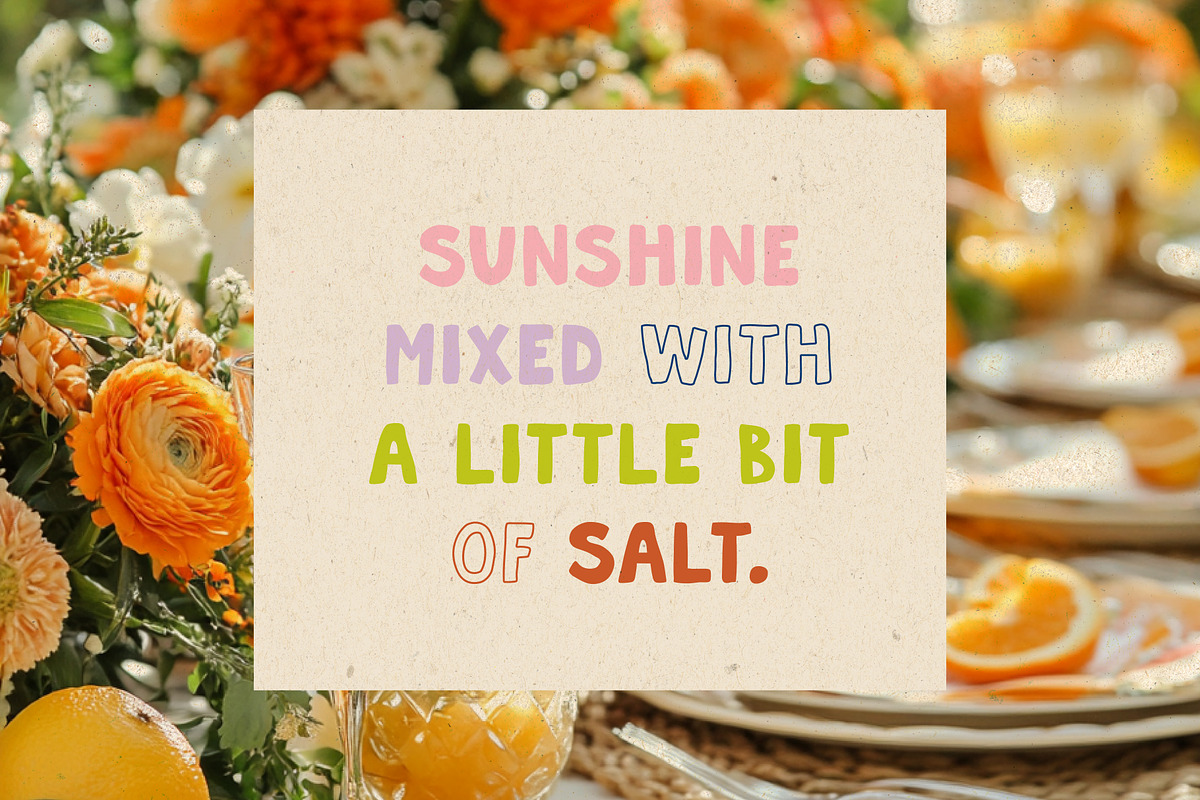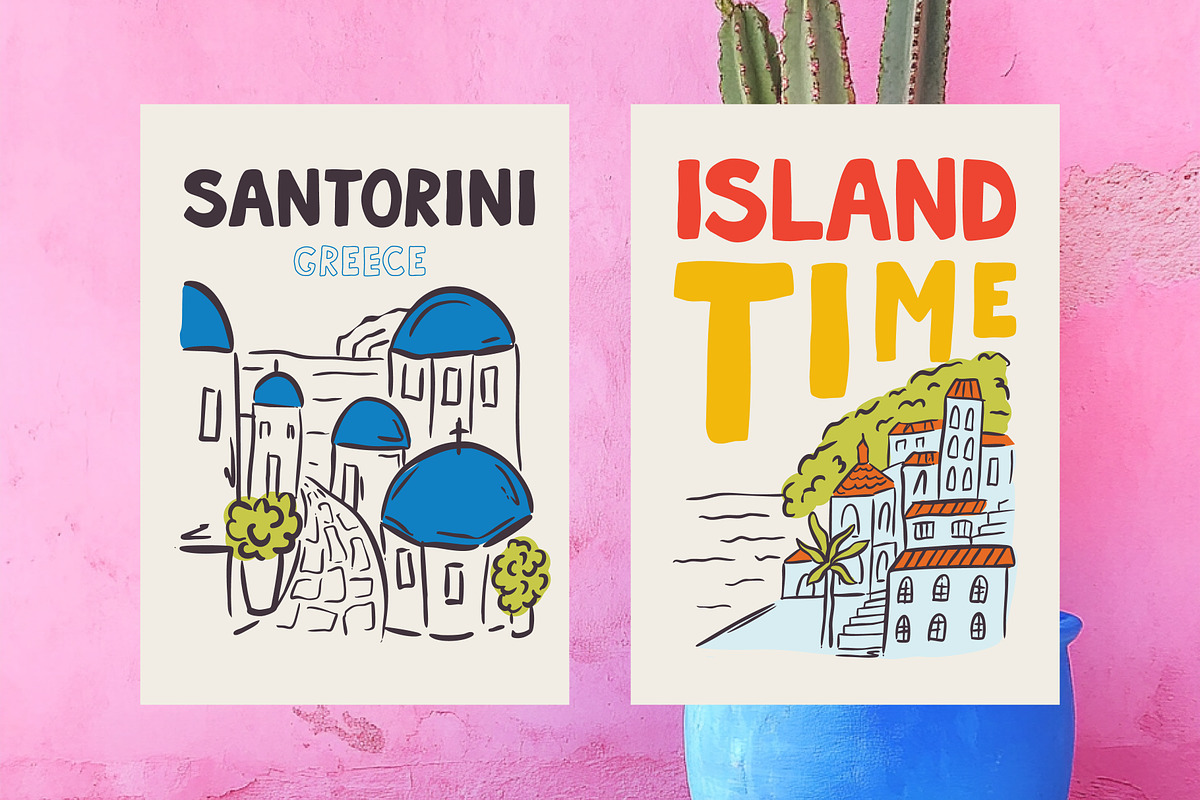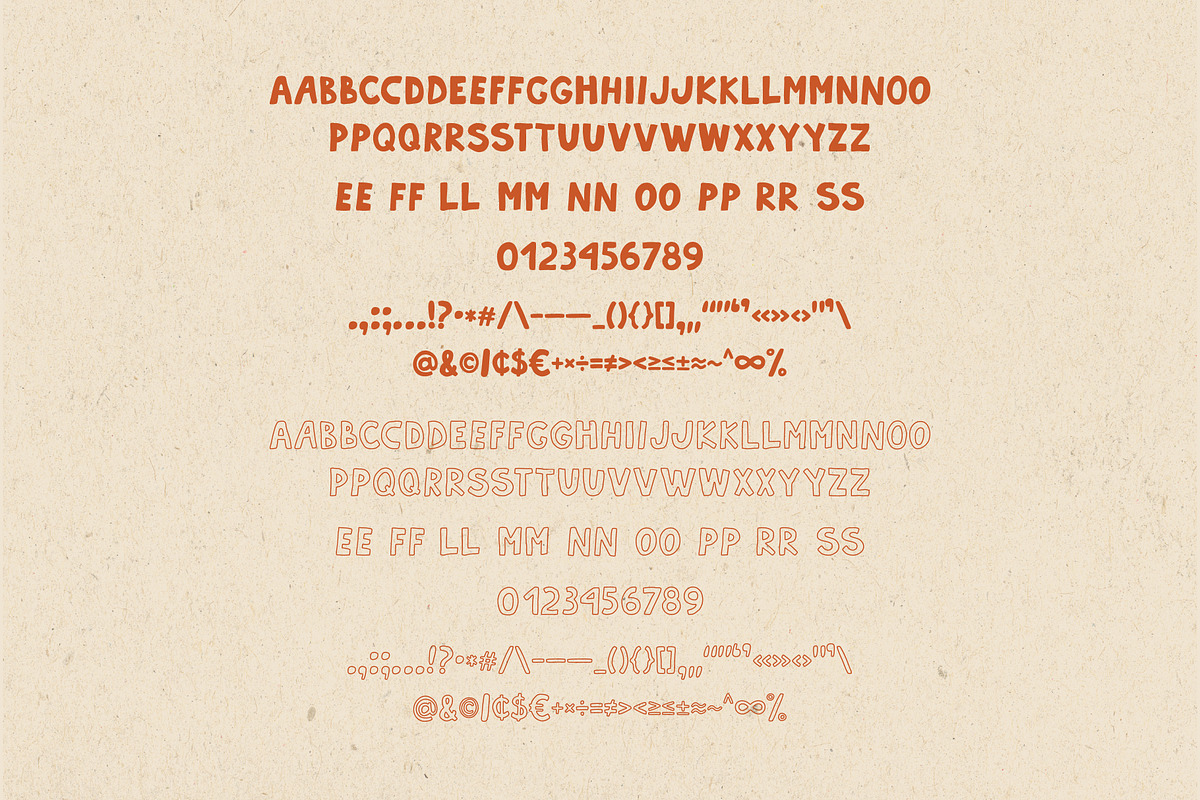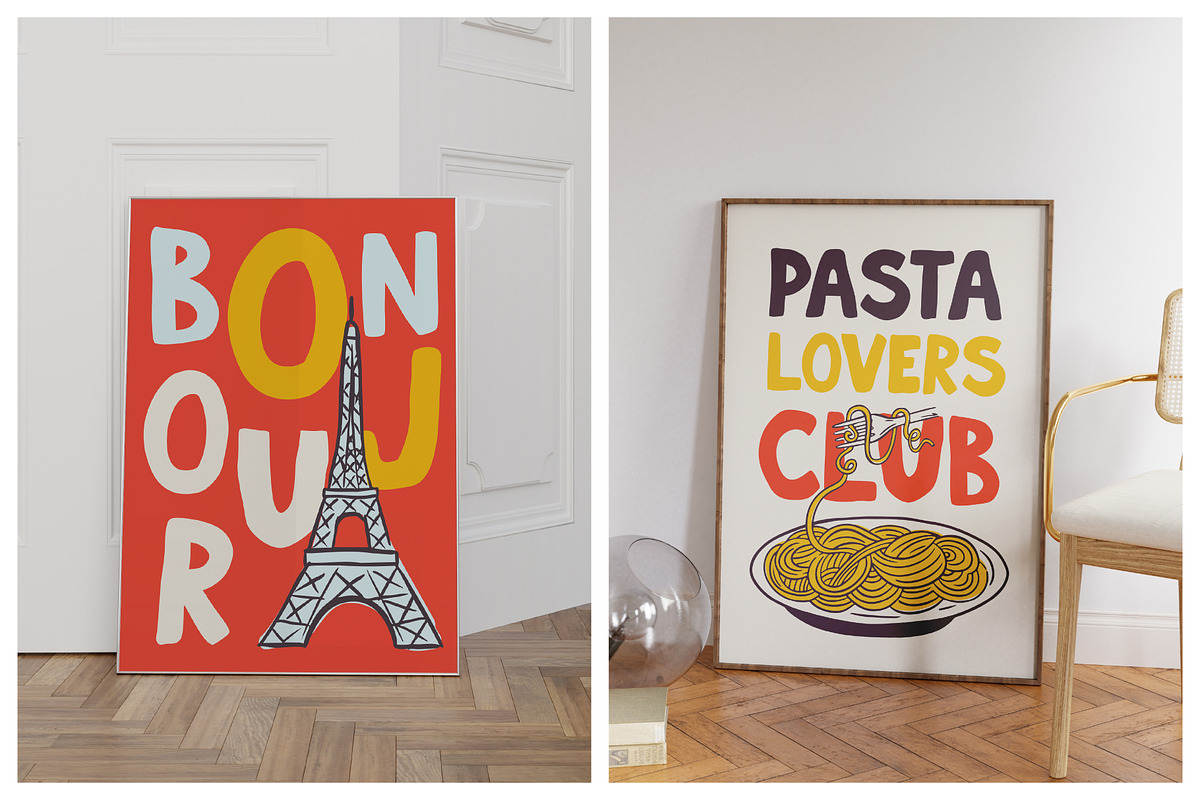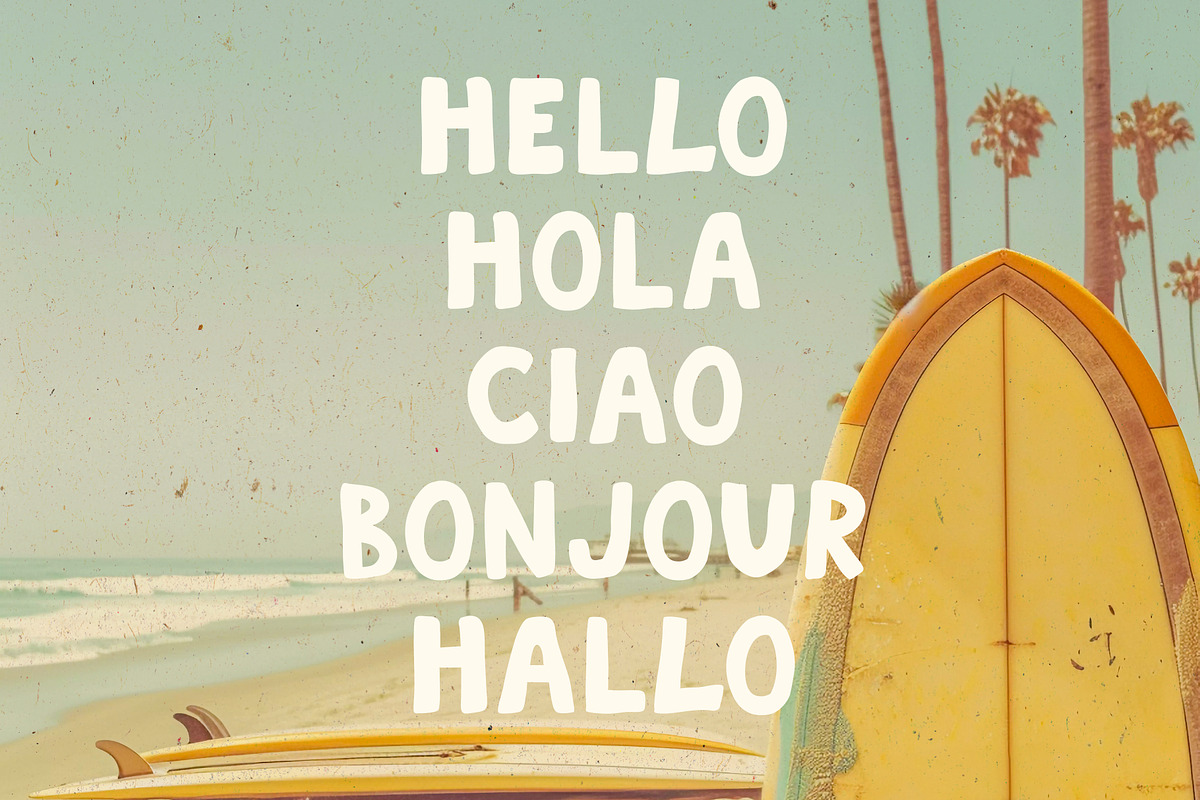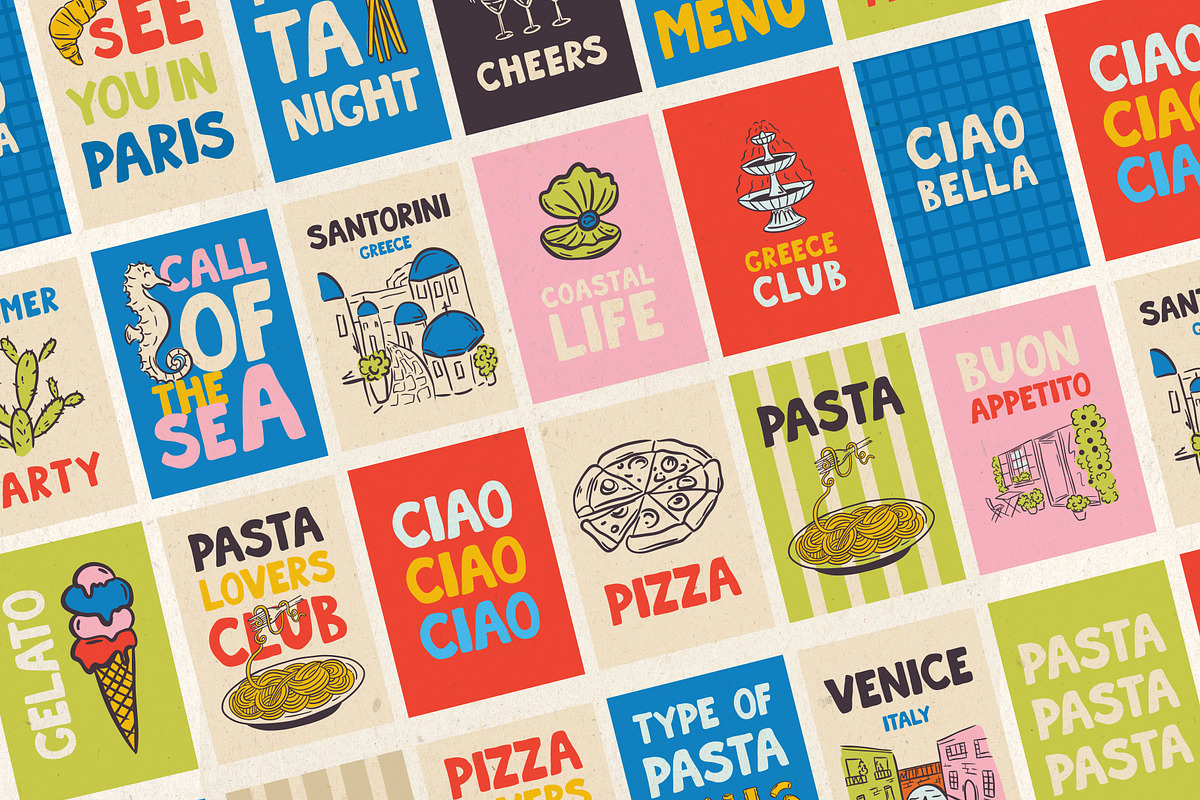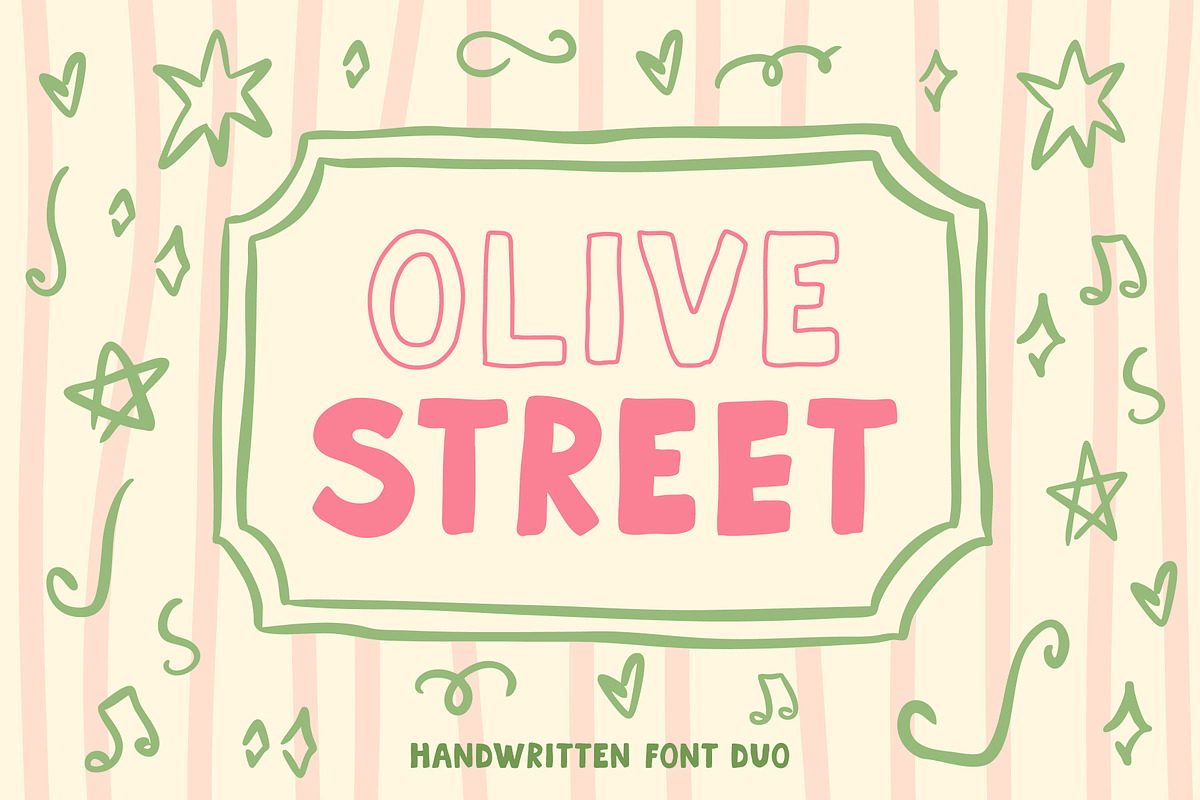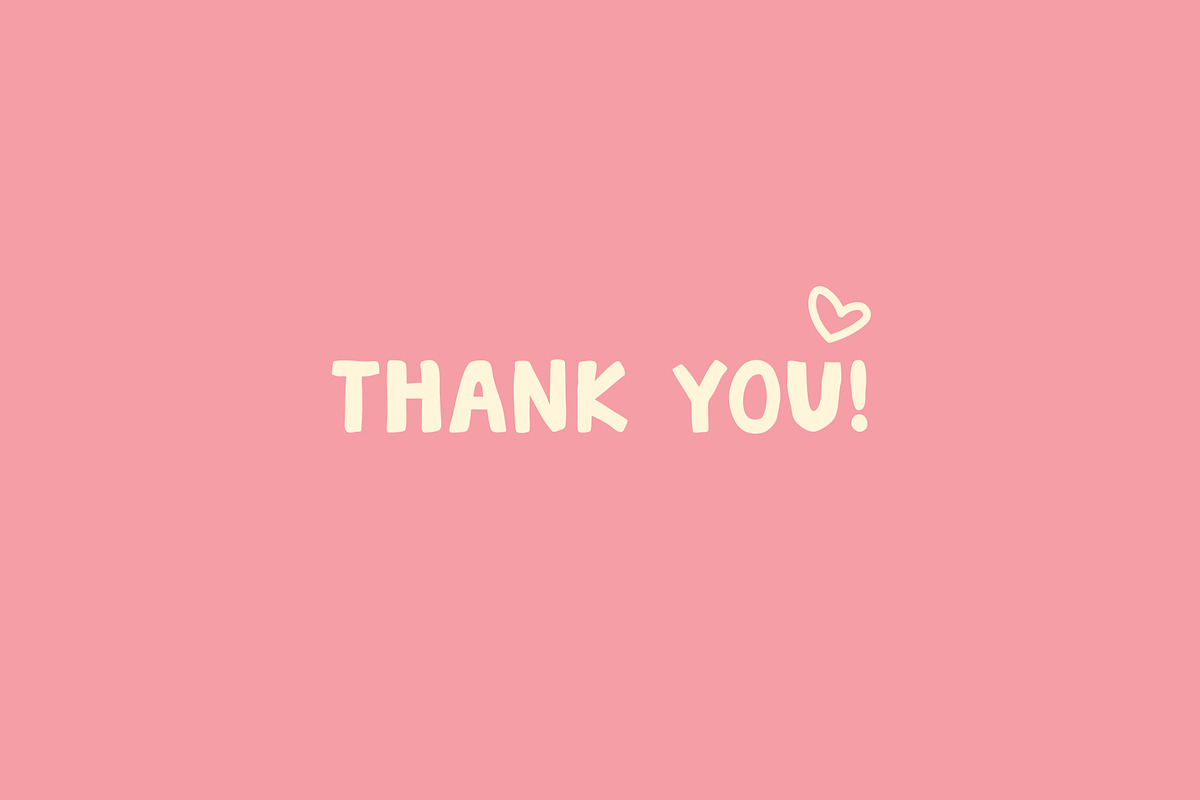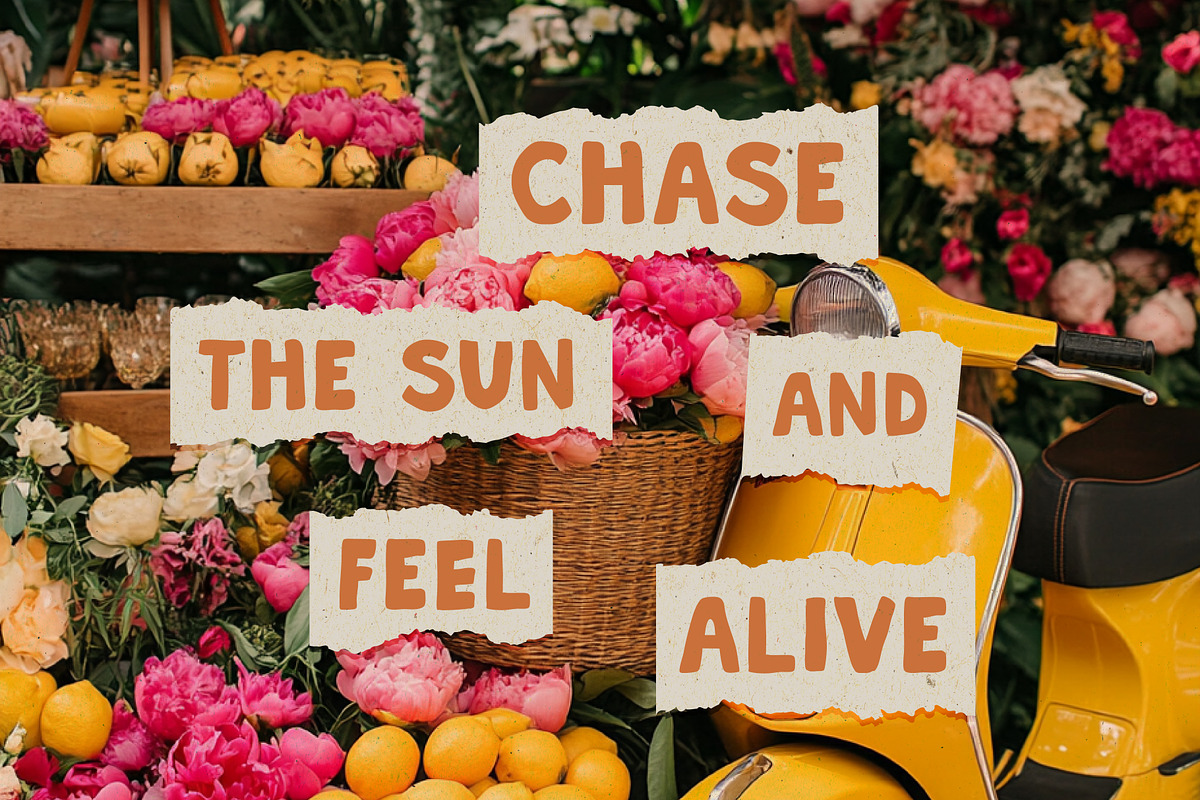
Olive Street Font
Bring a touch of la dolce vita to your designs with Olive Street, a playful handwritten font inspired by Italian script and retro charm. With its bold curves and whimsical personality, this display font is perfect for standout posters, quotes, logos, and social media graphics.
Whether you're designing in Canva, sketching in Procreate, or creating eye-catching printables, Olive Street adds a unique, quirky vibe that feels both modern and delightfully retro.